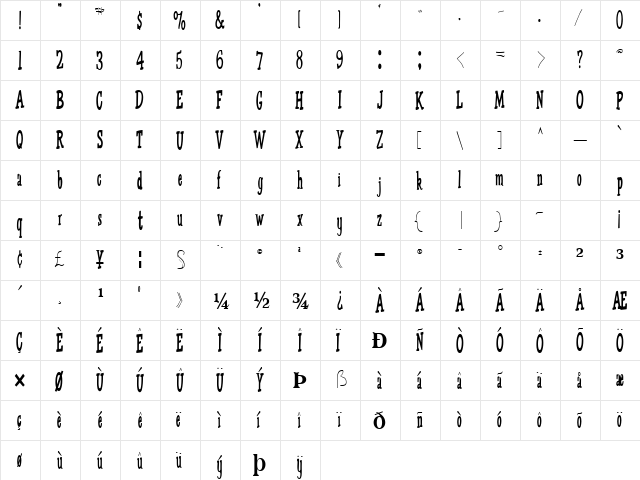
OmegaType93 Regular
Design Context for OmegaType93 Typeface
OmegaType93 is a composed and adaptable typeface that performs quietly and consistently across a wide range of design contexts.